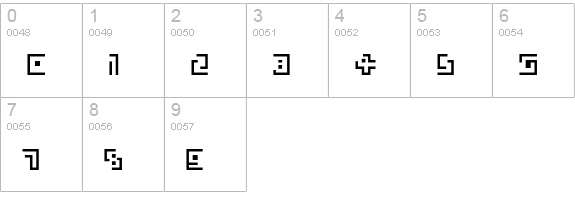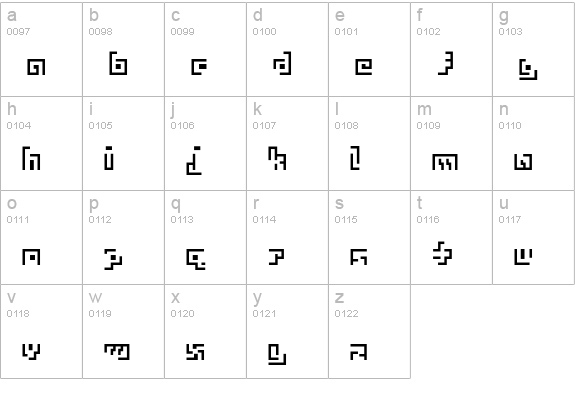
Maze91 Font Details
Maze91 font is a unique and versatile typeface that is perfect for adding a touch of creativity to your designs. Its intricate maze-like design gives it a modern and edgy look, making it ideal for a wide range of projects. Whether you're creating a poster, logo, or any other design, Maze91 font is sure to make a statement. Best of all, Maze91 font is completely free to download at FontsMarket.com. This means you can easily add this eye-catching font to your collection without breaking the bank. Don't miss out on the opportunity to enhance your designs with Maze91 font today!